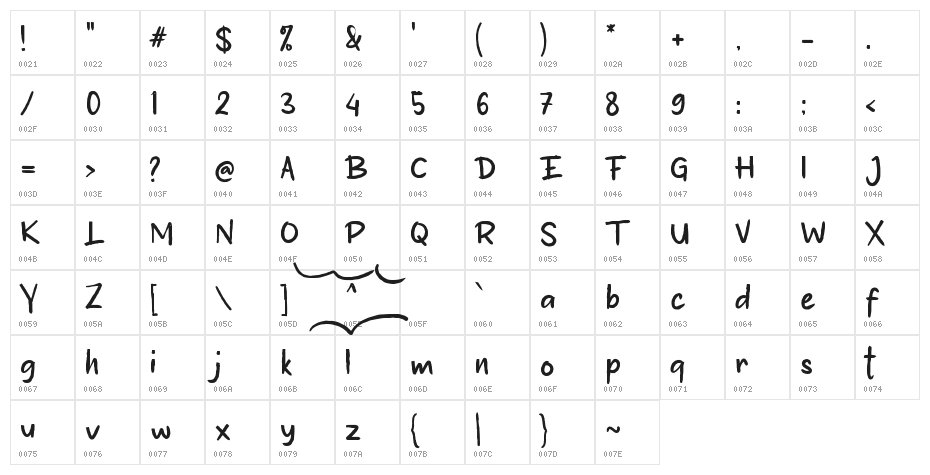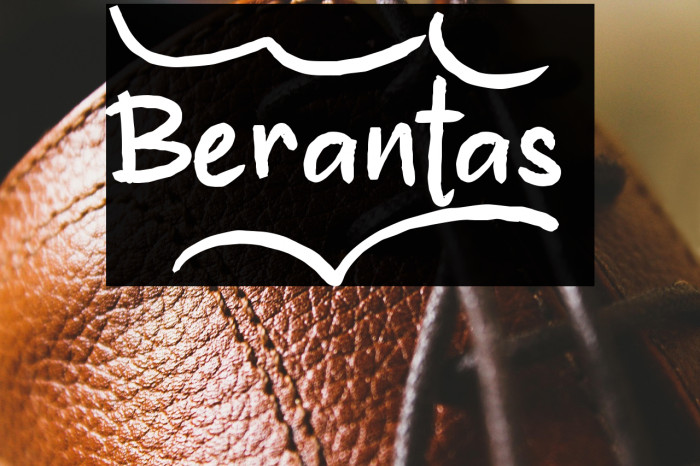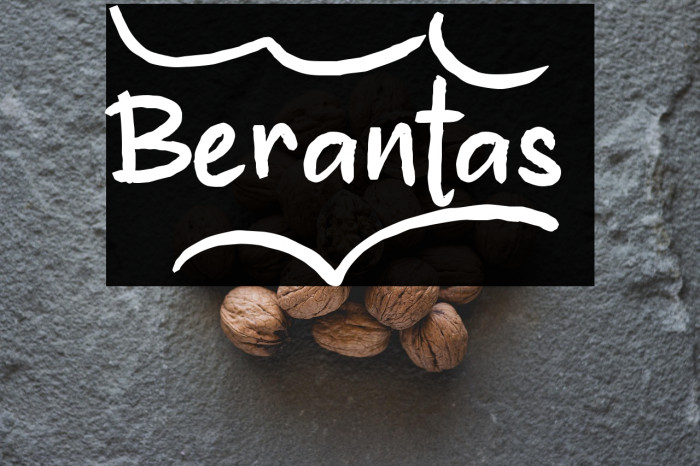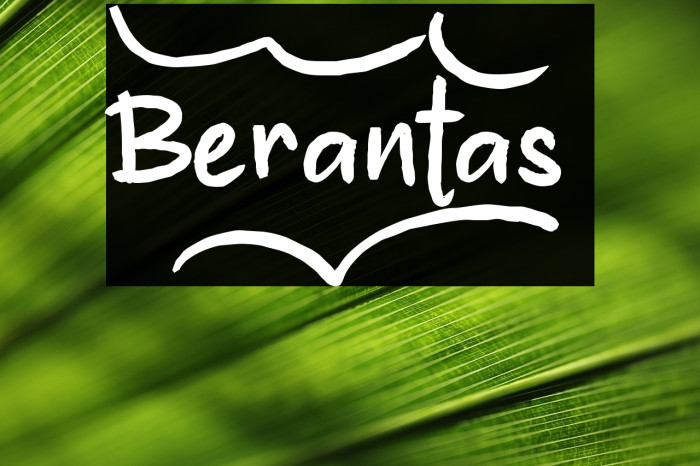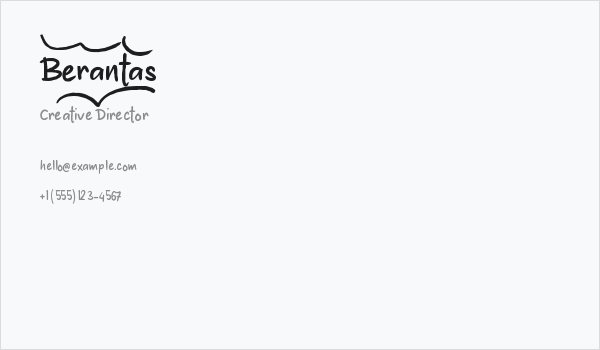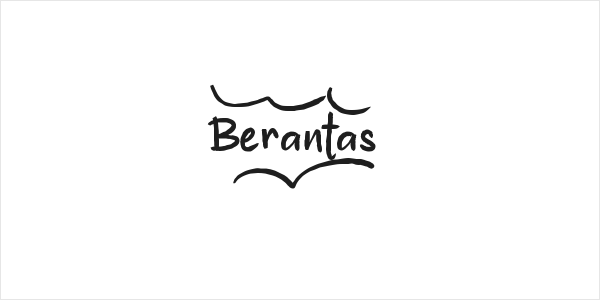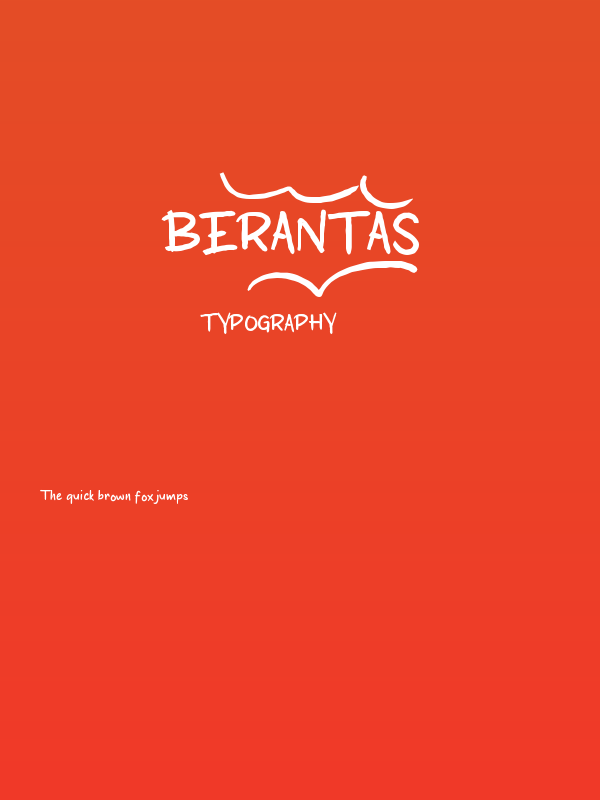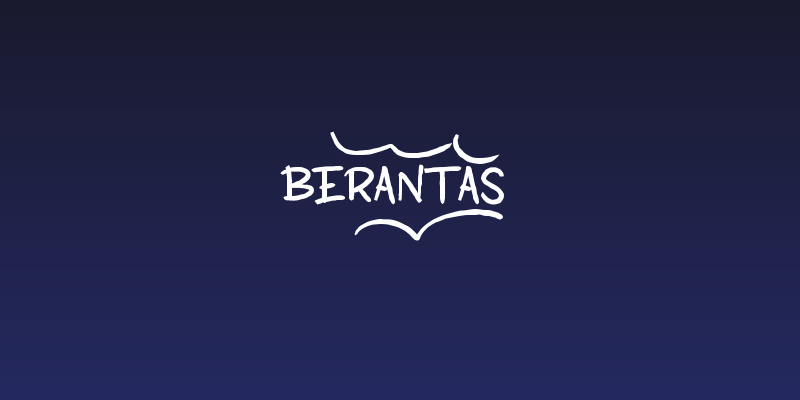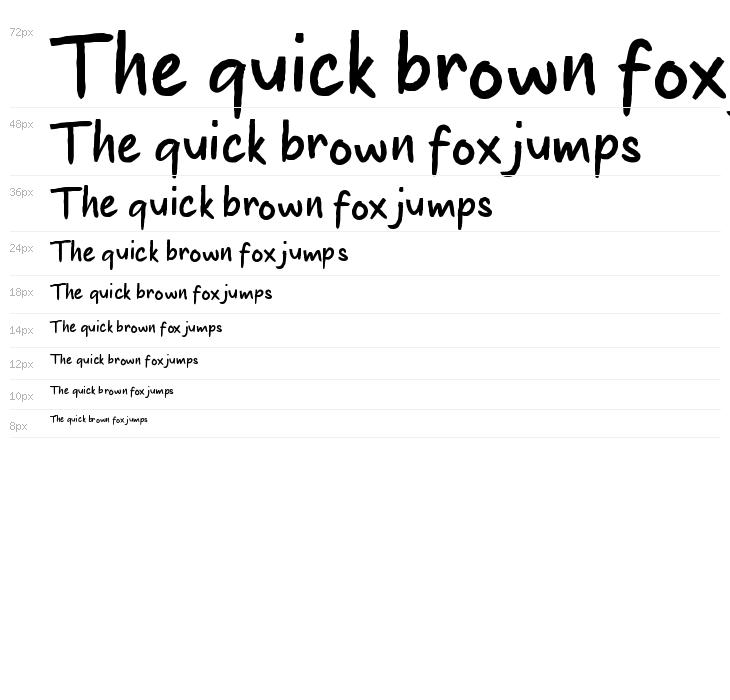
Berantas_ Font
Berantas_ Description
This font features a bold, handwritten style with a playful and casual appearance. The characters are slightly irregular, giving it a personal and organic feel. The uppercase letters are tall and slightly narrow, while the lowercase letters maintain a consistent height, contributing to a cohesive look. The numbers and special characters follow the same handwritten aesthetic, ensuring uniformity across all glyphs. The strokes are thick and consistent, adding to the boldness of the font. This style is reminiscent of hand-drawn lettering, making it suitable for projects that require a touch of personality and informality.
| Proposed Projects | Ideal for greeting cards, posters, social media graphics, and branding projects that require a personal touch. |